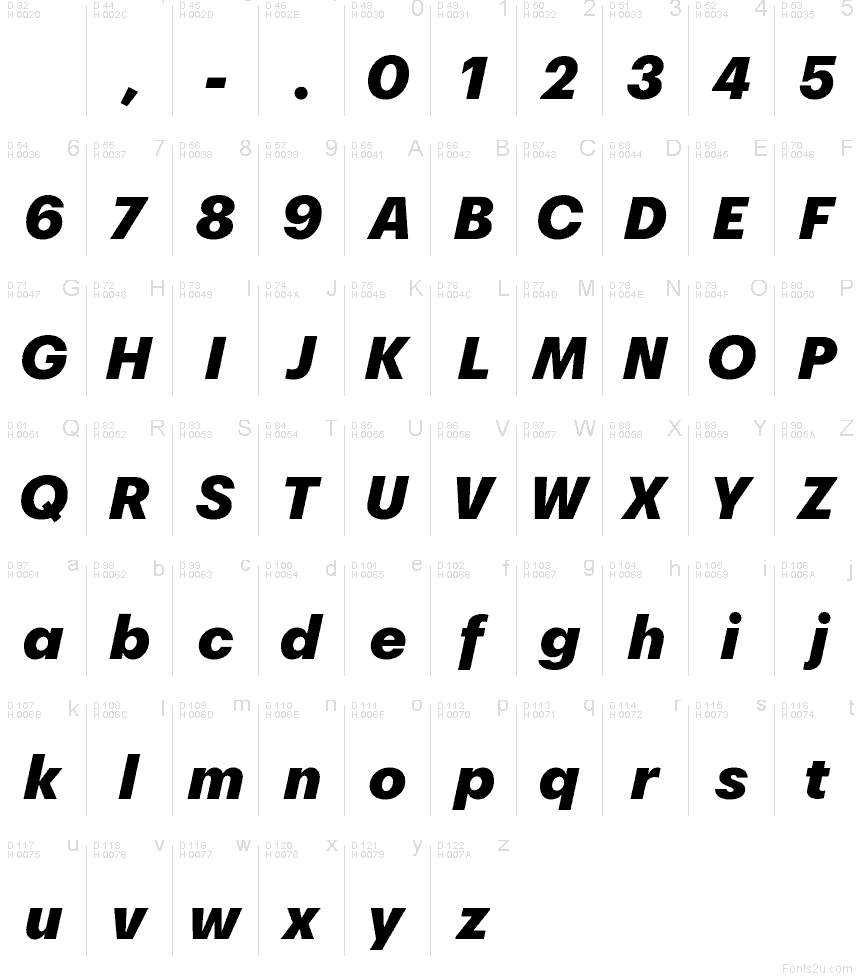
Encamp Test Black Italic
Encamp Test Black Italic font by Punchform is a free bold sans serif typeface with a built‑in rush of motion. Ultra-thick strokes, tight spacing, and that sharp forward slant make every word feel like it’s lunging off the line, built for big, high-impact moments rather than quiet body copy. The Encamp Test family flavor comes through in its clean, blocky curves that keep things legible even when you crank the size way up.
Using Encamp Test Black Italic, you get a headline workhorse for sports graphics, energy drink cans, racing posters, esports branding, bold social banners, and punchy apparel prints. This free font shines when you stack it in all caps and give it room to breathe around the edges. For a simple pairing, match it with a neutral, open grotesk for supporting text to let Encamp Test carry the main hit of attitude.